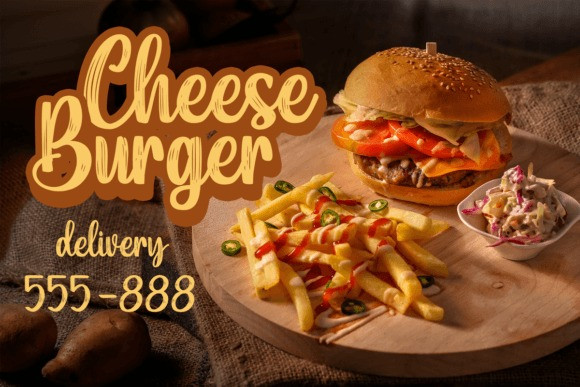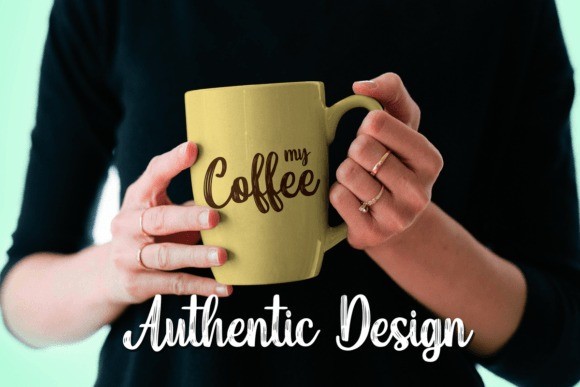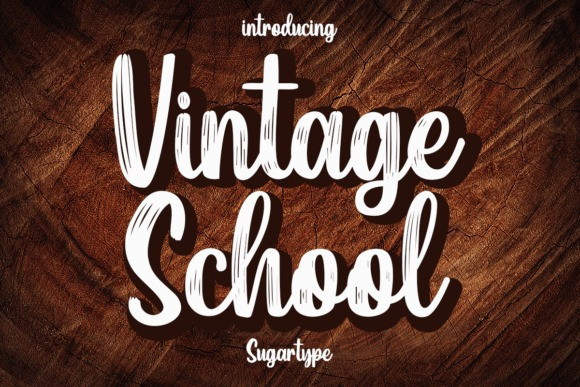
Vintage School Font
Vintage School Font is an authentic brush script font. The distinctive strokes in each letter give a thick vintage impression. Its bold and luxurious character will make your design project even more stunning. It looks stunning on any posters, brochures, quotes, thank you cards, greeting cards, wall art, print on demand, or planner designs that require a vintage touch.